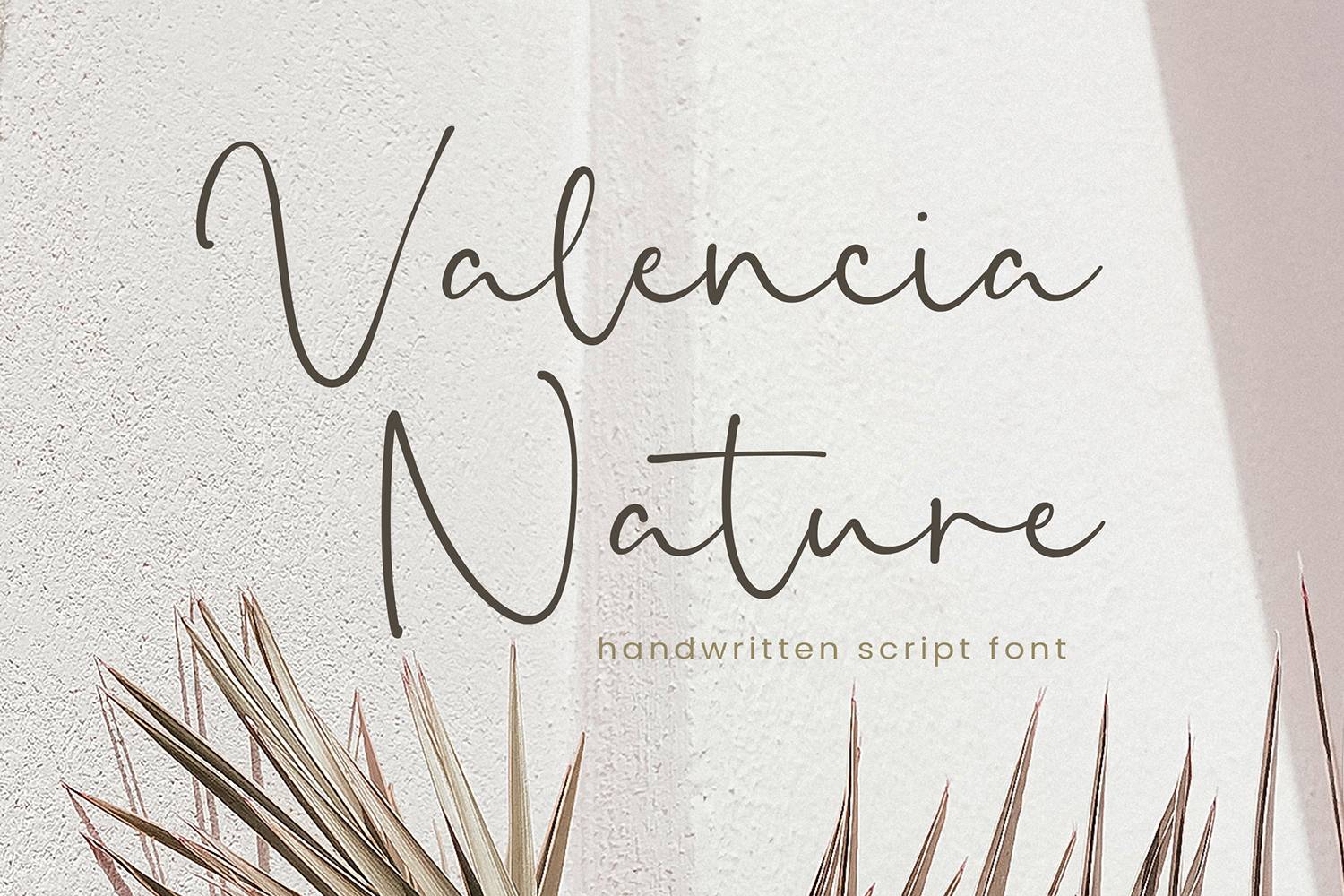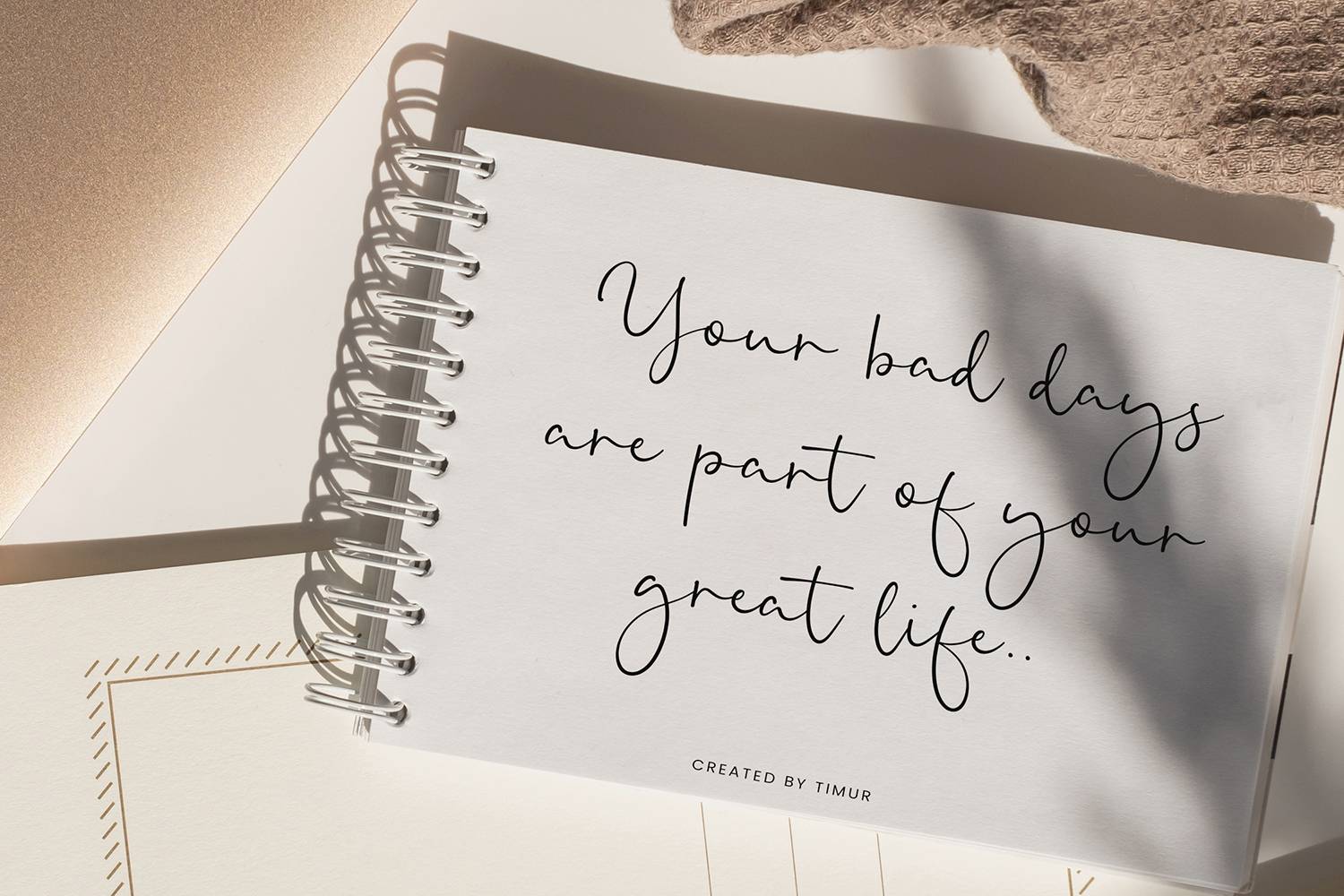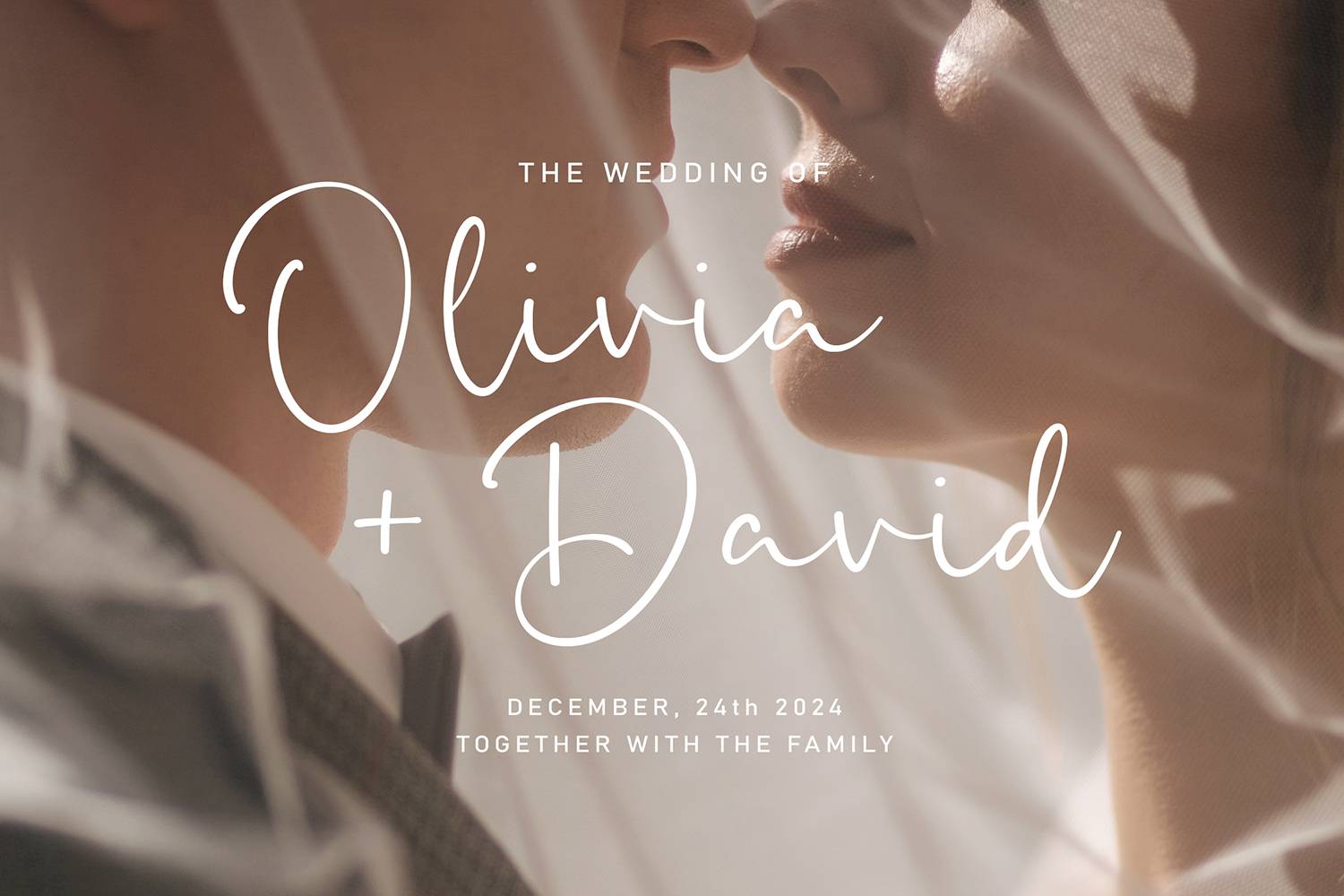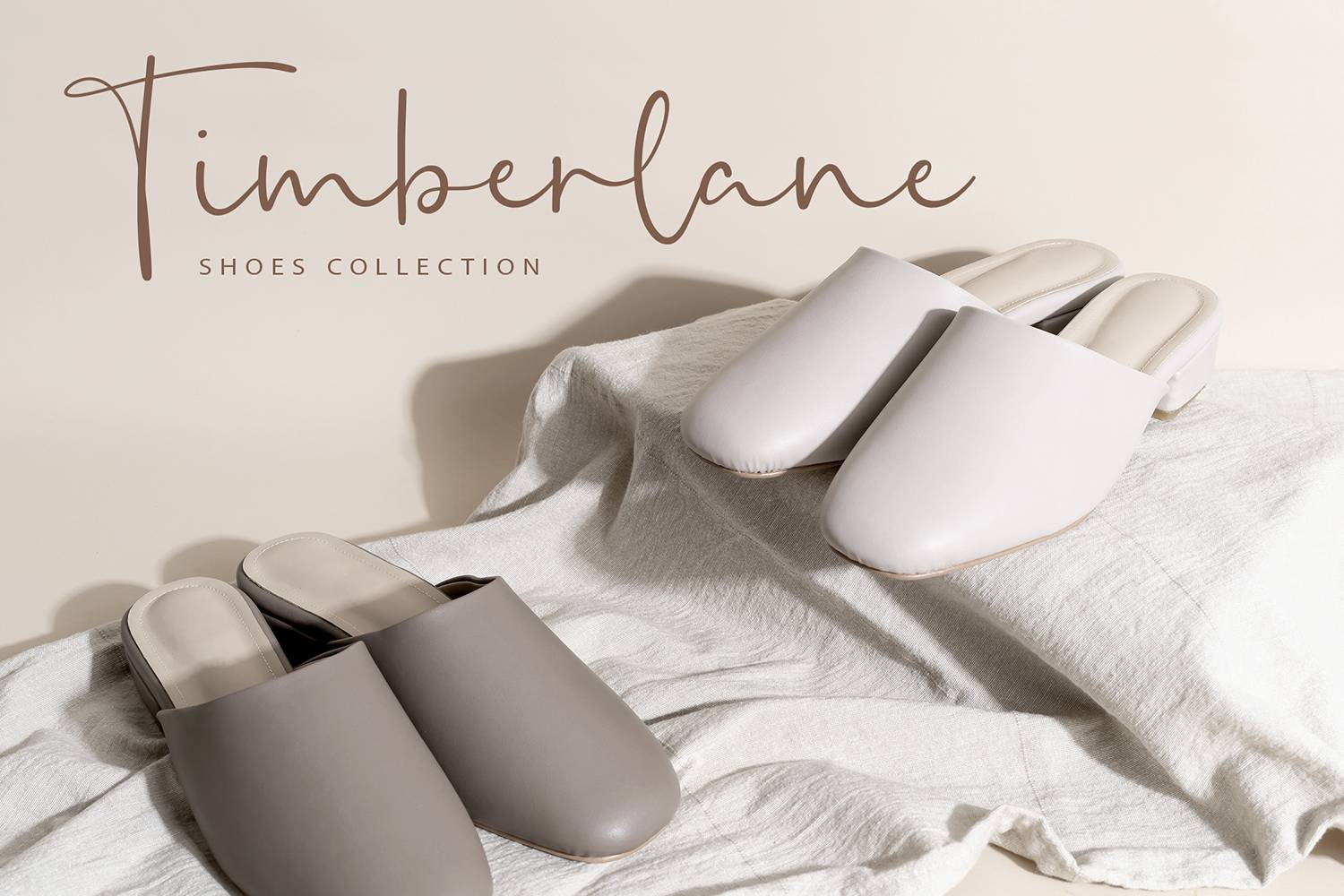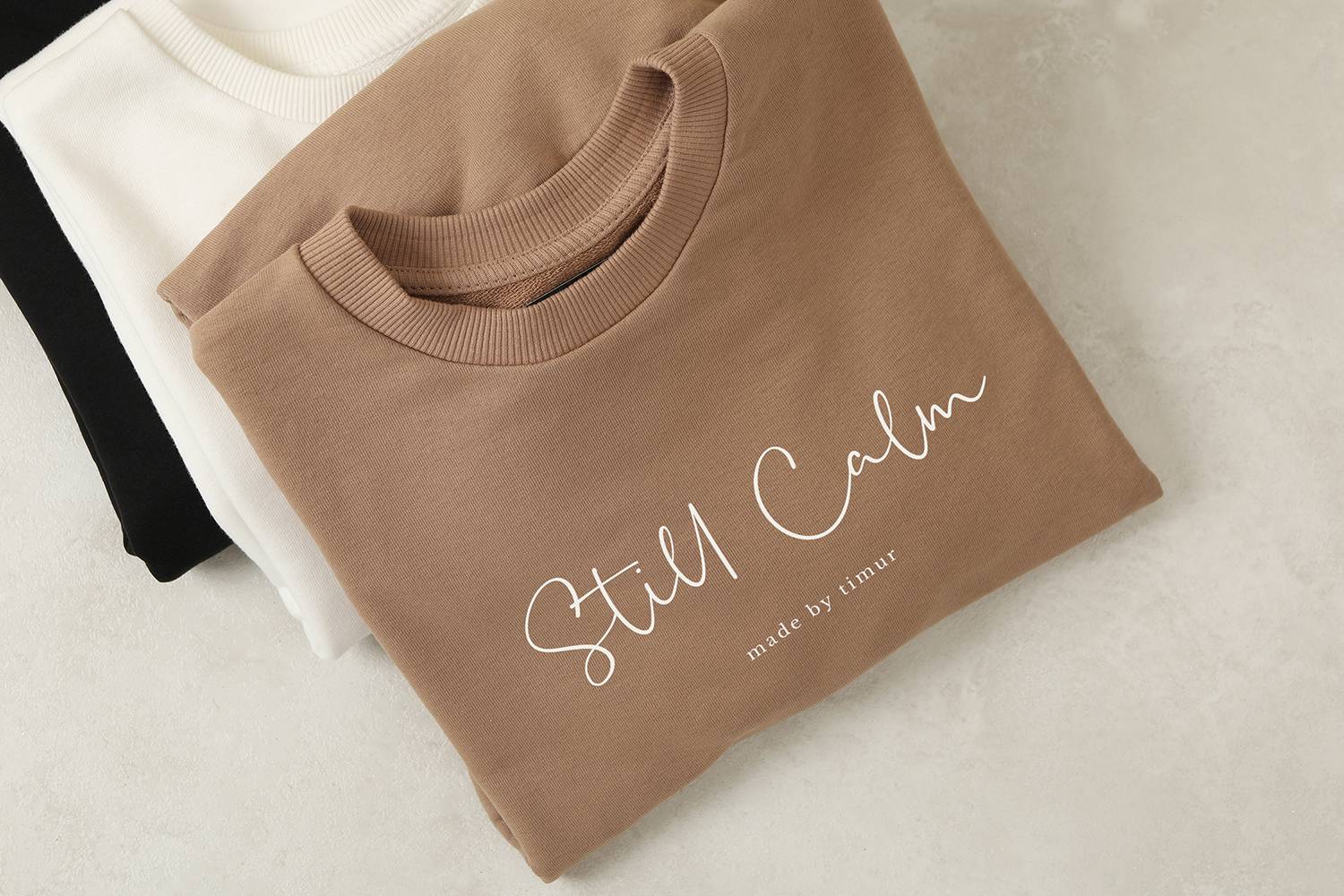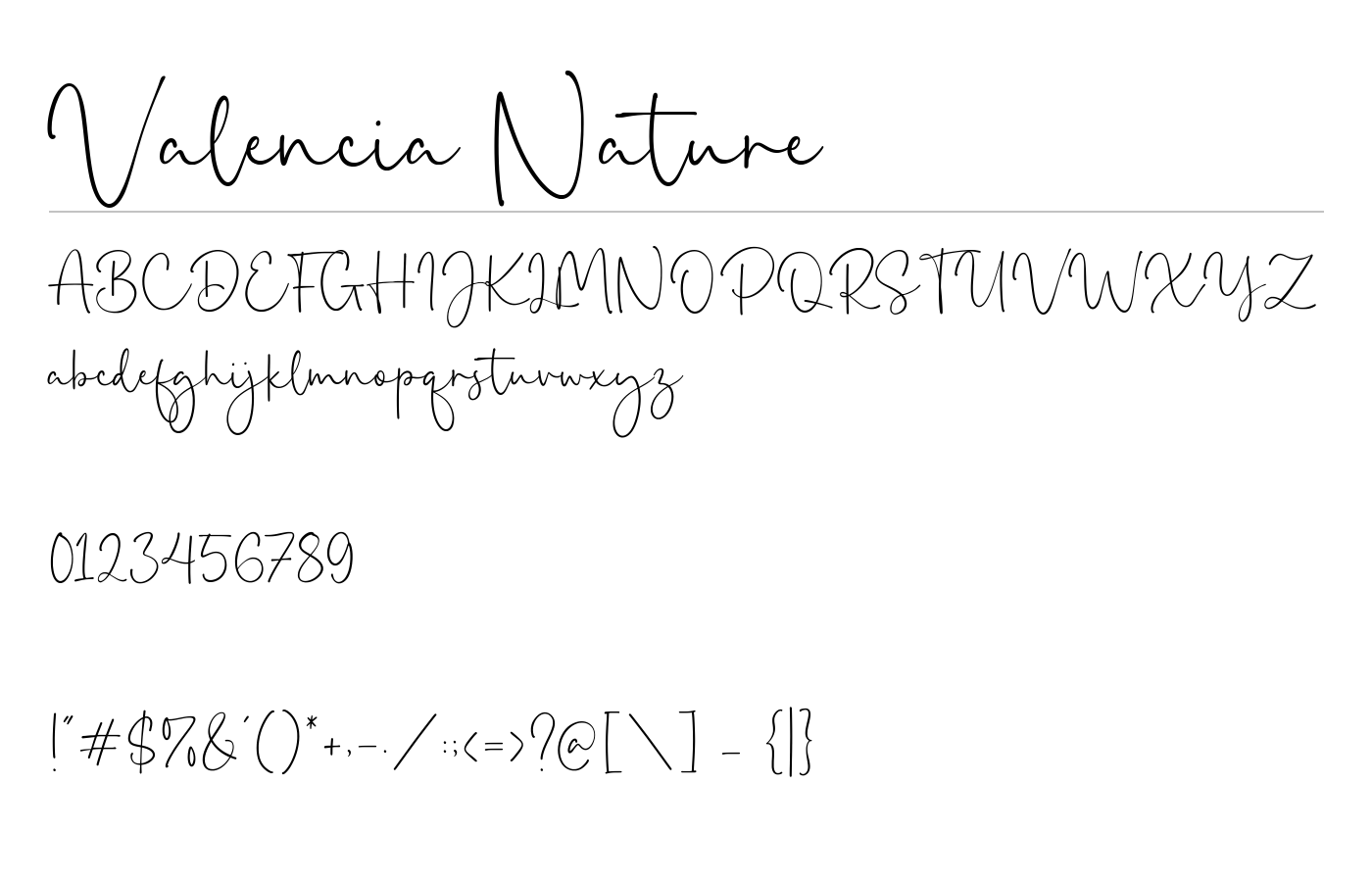
Valencia Nature is a delicate, handwritten script font featuring slender, elegant letterforms with a natural, flowing style. Its light weight and airy spacing give it a fresh, organic feel, making it perfect for projects that seek a personal, graceful touch such as invitations, branding for lifestyle or wellness, and artistic editorial work. This font’s refined yet casual charm adds warmth and sophistication without feeling formal or rigid.
Valencia Nature Font
About Valencia Nature Font